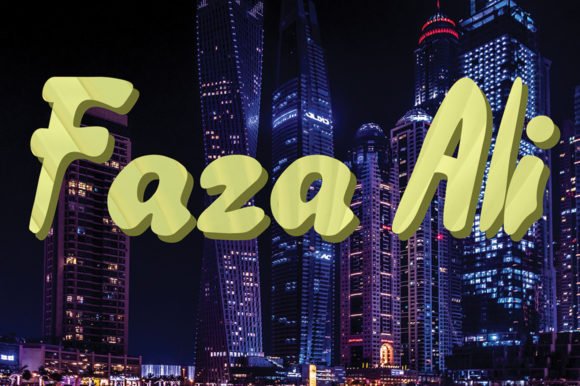
You know that feeling when you’re brainstorming ideas for a new project and everything just clicks? The fonts, the colors, the layout – it all comes together in perfect harmony. That’s the magic of great design, and it’s exactly what you’ll experience when you work with the Faza Ali Font.
This playful and modern script font is designed to bring a touch of elegance and sophistication to your traditional media and web projects. Whether you’re creating branding materials, banners, event flyers, or anything in between, Faza Ali Font is the perfect companion to help you make your designs stand out from the crowd.
As a designer, you’re always on the lookout for that special something to give your work an extra boost. With Faza Ali Font, you’ll find it in its trendiness and versatility, making it an invaluable addition to your toolkit.
Faza Ali Font Key Features
- Font Family: Faza Ali is a modern calligraphy font, suitable for various design projects.
- Unique Characteristics: Features intricate and elegant calligraphy, with a touch of modern sophistication.
- Language Support: Supports a wide range of languages, including English, Arabic, and other languages that use the Latin alphabet.
- Font Style: Offers a range of font styles, including Regular, Bold, Italic, and Bold Italic, for added flexibility.
Faza Ali Font Review
Faza Ali Font is an elegant, calligraphic script font that works well for creating visually appealing and luxurious designs. ✨ It has a unique flair that adds an artistic touch to any project. The font is perfect for branding, invitation, and greeting card designs where a touch of sophistication is required. ✨ The font’s fluid lines and dynamic curves make it a great choice for designers who want to add a sense of movement and energy to their work.
While Faza Ali Font has its strengths, there are some limitations to consider. ⚠️ One of the main issues is the font’s limited character set, which may not be suitable for projects that require a wide range of characters. ⚠️ Additionally, the font may not be easily readable in smaller font sizes, which can be a challenge for designers who want to use the font in body text or other areas where legibility is crucial.
Overall, Faza Ali Font is a great choice for designers who want to add a touch of elegance and sophistication to their work. While it may have some limitations, the font’s unique style and flair make it a valuable addition to any designer’s toolkit.
Recommendation
I would recommend Faza Ali Font to designers who are looking for a high-end, luxury font for their branding and design projects. However, I would caution designers to be mindful of the font’s limitations and to use it sparingly in areas where legibility is crucial.
- ✨ Elegant and sophisticated design
- ✨ Unique flair and artistic touch
- Perfect for branding, invitation, and greeting card designs
- ⚠️ Limited character set
- ⚠️ May not be easily readable in smaller font sizes
Faza Ali font is ideal for creative and artistic projects, such as:
- Typography-based designs
- Handwritten-style invitations
- Artistic quotes and phrases
For optimal results, use Faza Ali font in combination with bold colors and creative layouts to add a touch of personality to your designs.